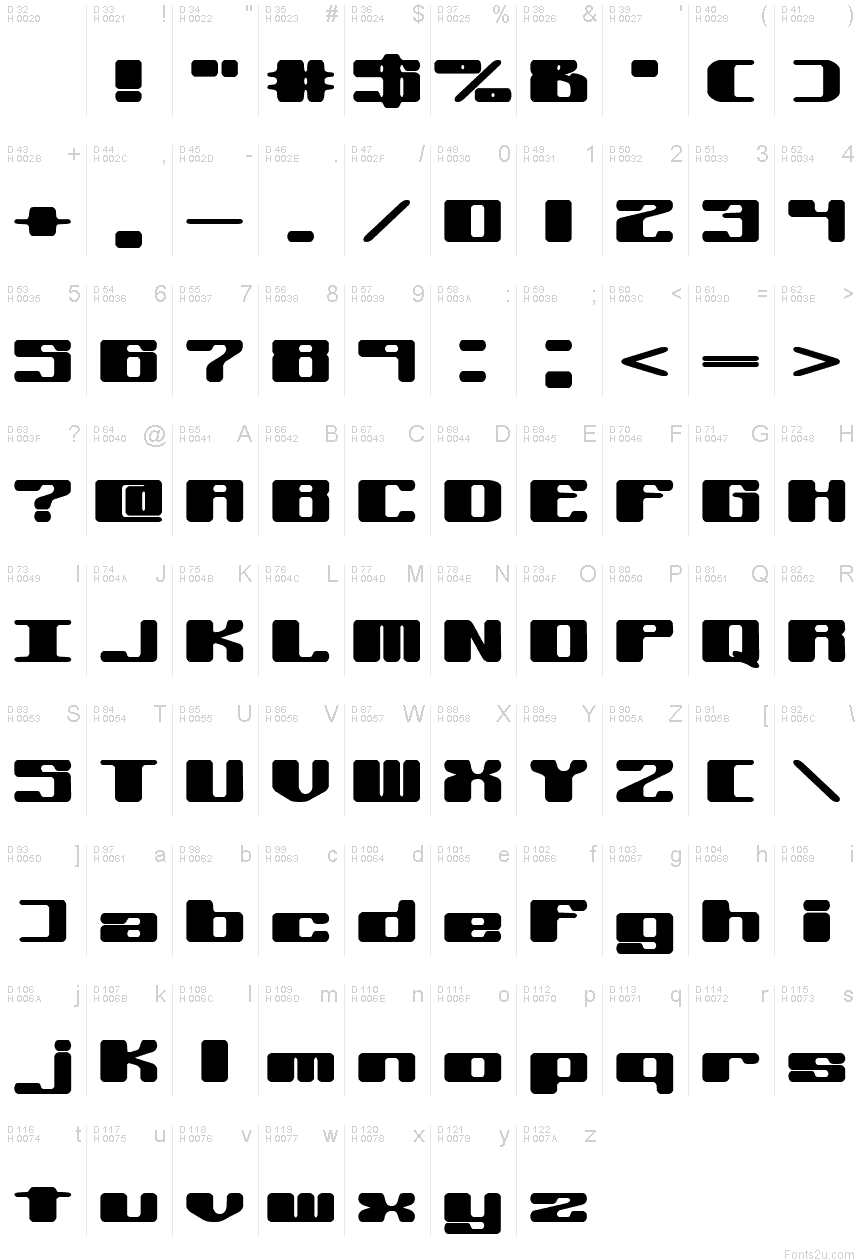
Off Kilter L -BRK-
Off Kilter L by ÆNIGMA FONTS is a free display font with rounded, blocky forms and a deliberately offset structure. The letters keep a strong geometric skeleton, but the uneven cut-ins and shifted pieces give the line a slightly askew rhythm.
It fits poster titles, album covers, club flyers, experimental branding, and zines, especially where a logo or header needs a graphic mark with a slightly lopsided edge. Packaging mockups, signage, and event graphics pick up that same cut-paper feel, so the font reads like a deliberate layout device rather than a standard text face.